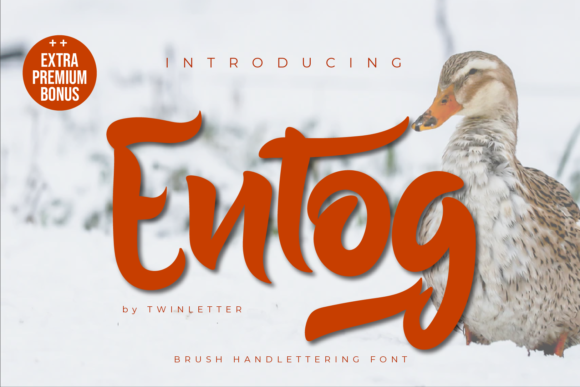
Behold, Entog Font — a masterpiece in the realm of script fonts. Immerse yourself in the embrace of its boldly stroked characters, dancing playfully across any canvas. A testament to the art of handwriting, Entog captivates hearts with its unique and enduring charm. Step into a world of artistic expression, where your creativity knows no bounds.
Unleash the boundless energy of Entog's thick, fluid strokes. Each letter flows seamlessly into the next, forming harmonious compositions that captivate the eye. With Entog gracing your projects, ordinary designs transform into captivating works of art. Experience the thrill of crafting logos that exude personality, business cards that command attention, social media graphics that ignite engagement, and invitations that leave a lasting impression.
Entog's allure extends far beyond mere aesthetics. Its versatility allows it to effortlessly adapt to a myriad of creative pursuits. Whether you're a seasoned designer or just starting your artistic journey, Entog stands as your trusted companion, empowering you to weave magic into every project. Its distinct style adds a touch of sophistication to wedding invitations, while effortlessly elevating the impact of your marketing materials. From the bustling streets of urban landscapes to the tranquility of nature's embrace, Entog seamlessly blends into any visual narrative.
Journey through history and find inspiration in the enduring charm of handwritten letters. Entog Font transports you to an era when every word was imbued with emotion and individuality. With each stroke of the pen, Entog captures the essence of human expression, evoking a sense of nostalgia and authenticity. Embrace the beauty of imperfect perfection, where the subtle variations in each character add depth and intrigue to your artistic vision.
With its thick, handwritten strokes, Entog makes a striking statement, transforming your words into evocative brushstrokes. Visualize the impact of your logos, the allure of your social media posts, and the timeless elegance of your wedding invitations. As your ideas flow onto the page, Entog dances alongside them, infusing them with its captivating energy. Embrace the transformative power of Entog and watch as your creative endeavors blossom into masterpieces.